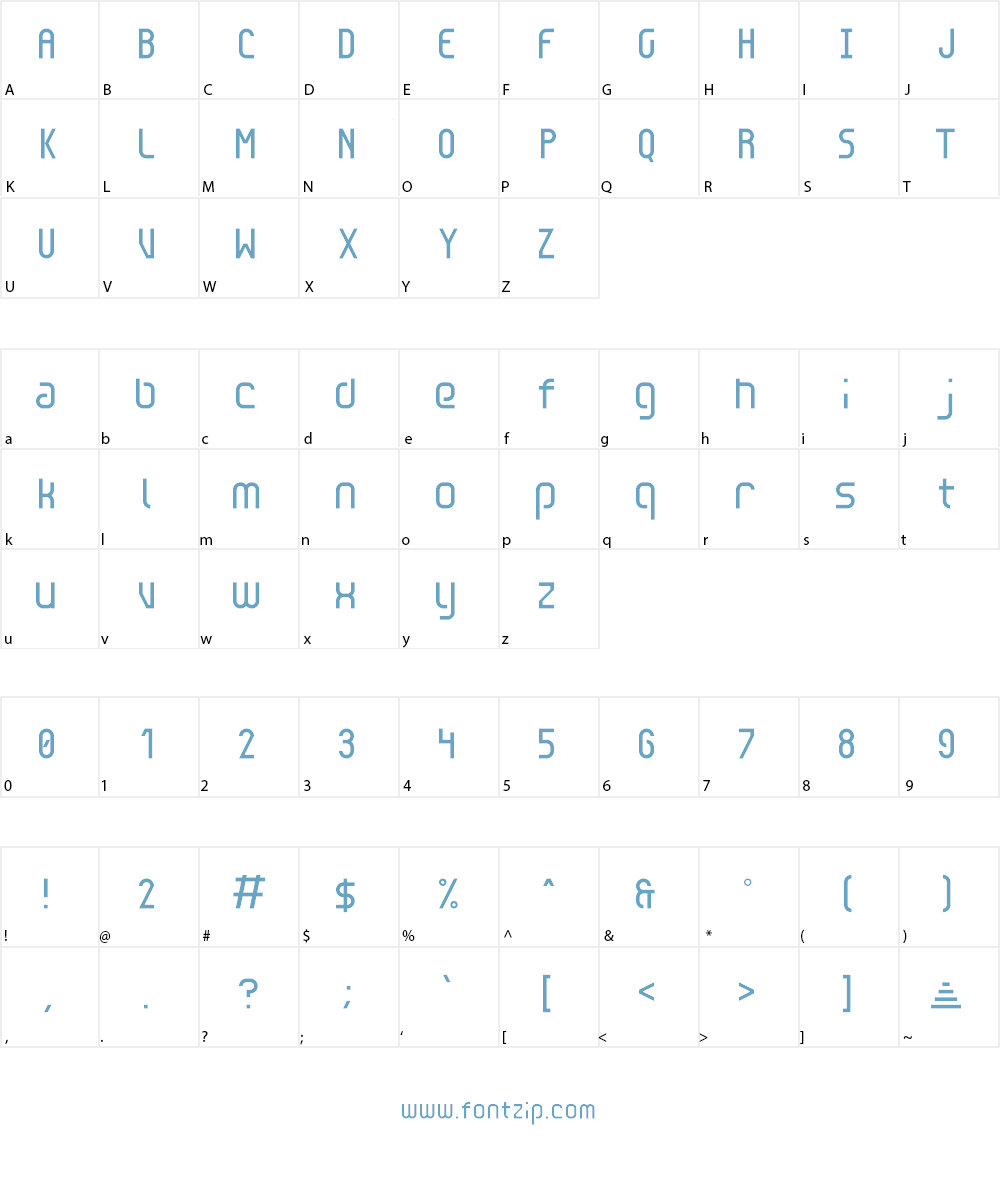
A pair of DEVOlved fonts inspired by 1950s and 60s kitschy sci-fi. Mr Kamikaze is inspired by one faction's obsession with Outer Space. Mr Dna is inspired by the other faction's obsession with robots.